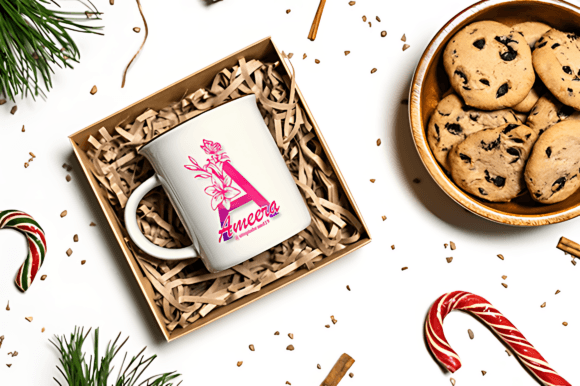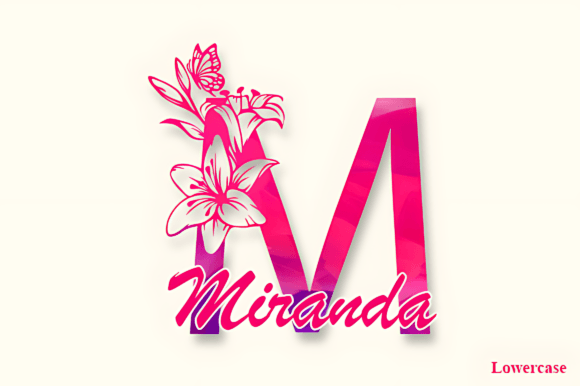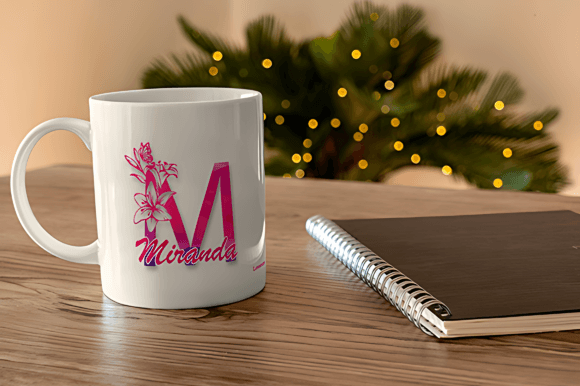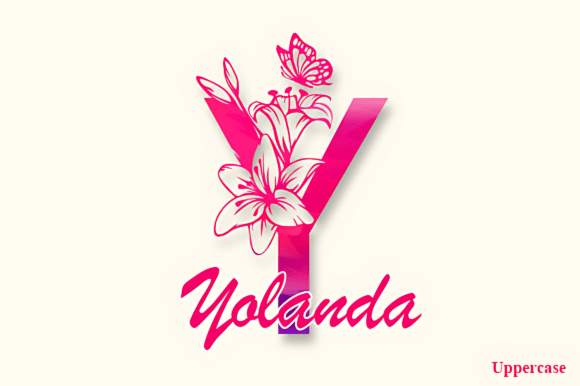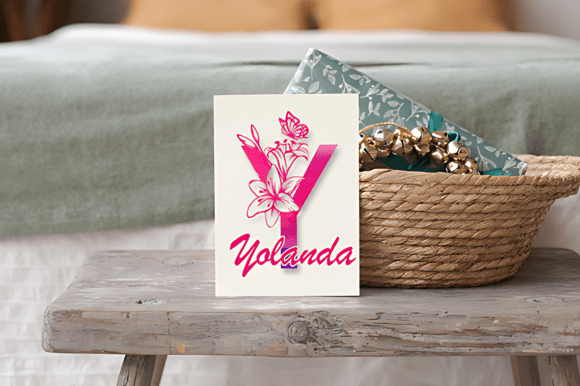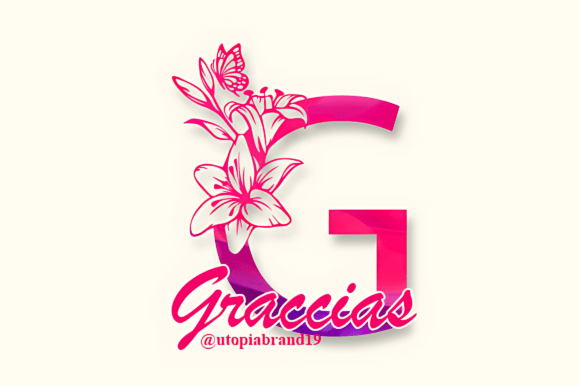
Introducing Ameera Monogram Font: Elevate Your Designs with Elegance and Romance
Step into a world of elegance with Ameera Monogram – an exquisitely unique and dainty decorative font. The Ameera Monogram font infuses your love letters, wedding invitations, and cherished design ideas with a touch of romance that leaves a lasting impression. Experience the astounding transformation and charm this unique font brings to your written expressions. With Ameera Monogram, your pen not only writes, but it dances to the rhythm of beauty and elegance.
Unleash the Power of Ameera Monogram Font
Are you a designer, crafter, or DIY enthusiast looking to add a touch of sophistication to your projects? Look no further than Ameera Monogram Font. This stunning decorative font is perfect for creating beautiful wedding invitations, romantic love letters, and other design projects that require a dash of elegance. With Ameera Monogram, you can add a personal touch to your creations and make them truly unforgettable.
Key Features of Ameera Monogram Font
- Unique and Dainty Design: Ameera Monogram Font boasts a distinctive and intricate design that sets it apart from other fonts. Its dainty and delicate appearance makes it perfect for adding a touch of romance to your designs.
- Perfect for Wedding and Love-themed Designs: Whether you’re designing wedding invitations, love letters, or other romantic materials, Ameera Monogram Font is the ideal choice. Its elegant and sophisticated design will make your creations truly special.
- High-quality and Versatile: Ameera Monogram Font is a high-quality font that can be used for a wide range of design projects, from digital designs to print materials.
Inspiration and Ideas for Using Ameera Monogram Font
Ameera Monogram Font is a versatile font that can be used for a wide range of design projects. Here are some inspiration and ideas to get you started:
- Wedding Invitations: Use Ameera Monogram Font to create stunning wedding invitations that set the tone for a romantic and elegant wedding.
- Love Letters: Add a touch of romance to your love letters with Ameera Monogram Font. Perfect for Valentine’s Day, anniversaries, or just because.
- DIY Crafts: Use Ameera Monogram Font to create beautiful DIY crafts, such as handmade cards, gift tags, and other paper crafts.
- Digital Designs: Ameera Monogram Font is perfect for digital designs, such as social media graphics, blog headers, and other online materials.
In conclusion, Ameera Monogram Font is a unique and exquisite decorative font that adds a touch of elegance and romance to any design project. With its dainty and delicate design, it’s perfect for wedding invitations, love letters, and other romantic materials. Whether you’re a designer, crafter, or DIY enthusiast, Ameera Monogram Font is a must-have font that will elevate your designs and leave a lasting impression.
Get Ready to Experience the Beauty of Ameera Monogram Font